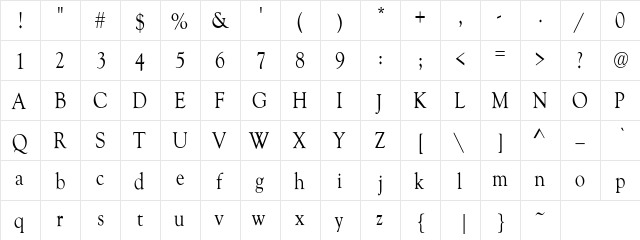
Glennis Condensed REGULAR Regular
Glennis Condensed REGULAR is a composed and adaptable typeface that performs quietly and consistently across a wide range of design contexts. The condensed width makes it efficient for tight spaces without sacrificing legibility.